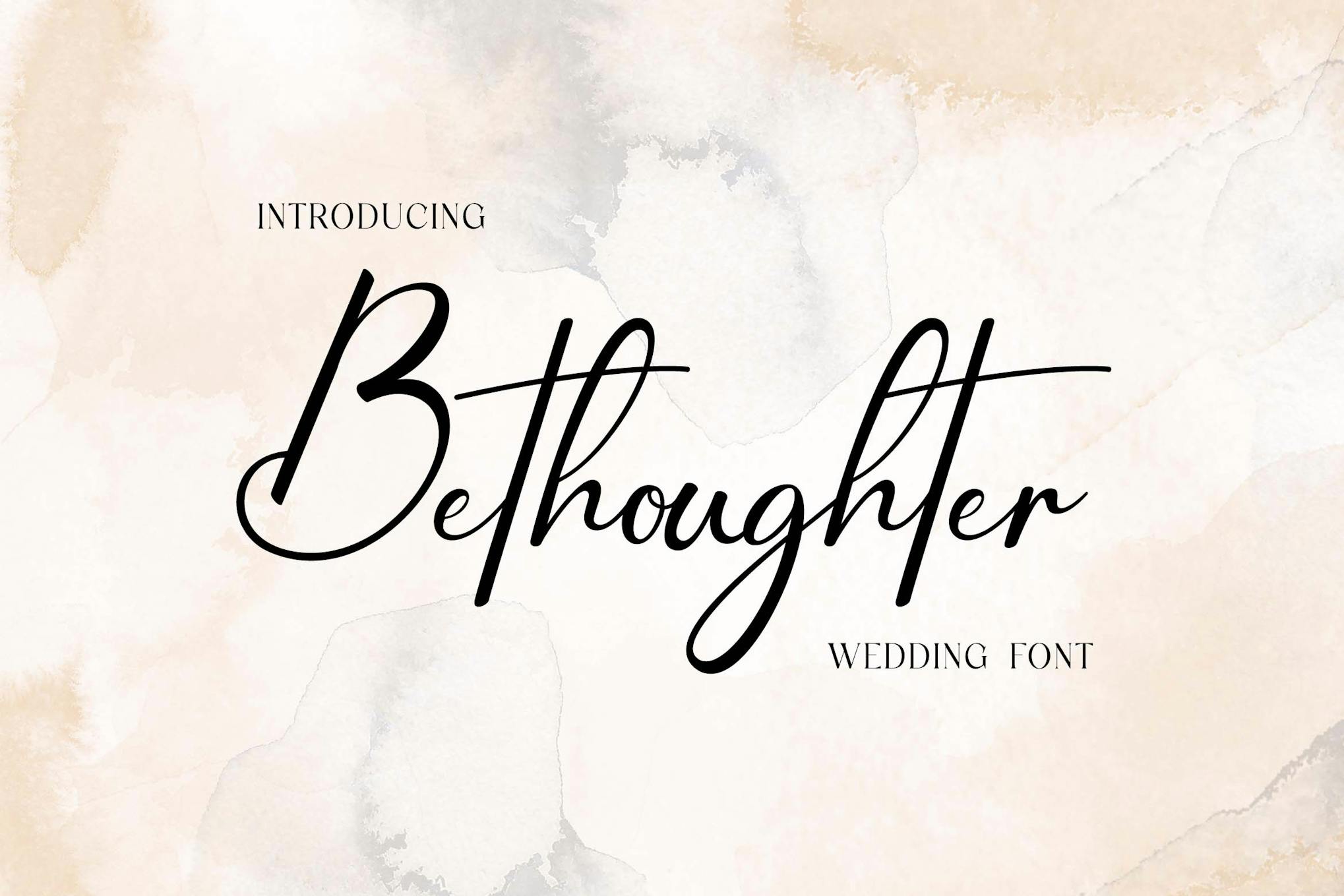
Bethoughter Script Wedding Font
The Bethoughter Script Wedding Font excels in thoughtful design applications including mindful wedding invitations, thoughtful bridal branding, contemplative ceremony logos, reflective product packaging, mindful business cards, thoughtful portfolios, contemplative greeting cards, reflective social media graphics, mindful event signage, and thoughtful marketing materials. Its thoughtful script style makes it perfect for projects requiring contemplative elegance that communicates mindfulness and establishes reflective brand positioning with audiences seeking thoughtful wedding experiences and contemplative sophistication.
What makes the Bethoughter Script Wedding Font genuinely exciting is its exceptional ability to capture the thoughtful beauty and contemplative elegance of mindful weddings through thoughtfully crafted letterforms. The font features flowing, contemplative strokes with thoughtful flourishes and reflective proportions that create a distinctly mindful appearance. Each character displays remarkable attention to thoughtful detail with contemplative curves, reflective connections, and mindful spacing that give text a beautifully thoughtful, hand-lettered quality. The font's contemplative character and thoughtful rhythm create an atmosphere of reflective elegance while maintaining mindful sophistication and wedding authenticity.
The Bethoughter Script Wedding Font family typically includes regular weight with extensive character coverage, featuring uppercase and lowercase letters, numerals, punctuation marks, and international characters. The typeface often incorporates stylistic alternates, contextual ligatures, and thoughtful swashes that enhance its signature contemplation. These additional elements provide designers with creative flexibility to customize text appearance and achieve more natural-looking reflective handwriting that reflects the font's thoughtful and mindful character.
This thoughtful signature font distinguishes itself through its remarkable balance of contemplative charm and sophisticated elegance. Unlike thoughtless or careless fonts that lack mindful appeal, Bethoughter Script Wedding Font embraces the power of thoughtful design to create contemplative connections with reflective wedding audiences. The font's mindful character makes it essential for thoughtful wedding planners, contemplative brands, and reflective celebration businesses where creating mindful wedding experiences and thoughtful memories is fundamental to success in contemplative wedding markets.